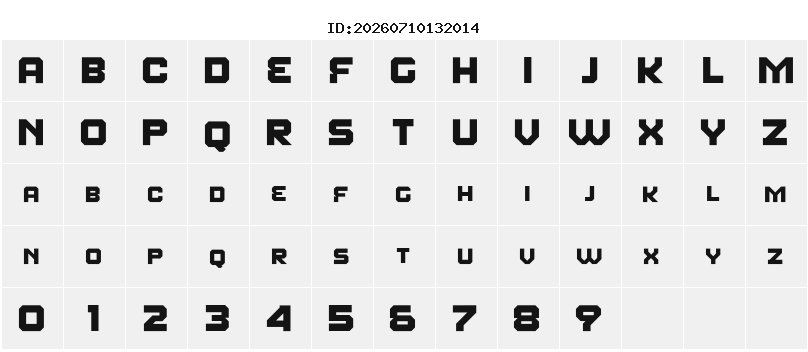
Fear Factor 'SmallCaps' Preview
• Font Name: Fear Factor 'SmallCaps'
• Full Font Name: Fear Factor 'SmallCaps'
About Fear Factor 'SmallCaps'.ttf
Fear Factor 'SmallCaps'.ttf is a modern, elegant sans-serif font designed for ultimate readability and visual harmony. Perfect for branding, headlines, web design, and print materials.